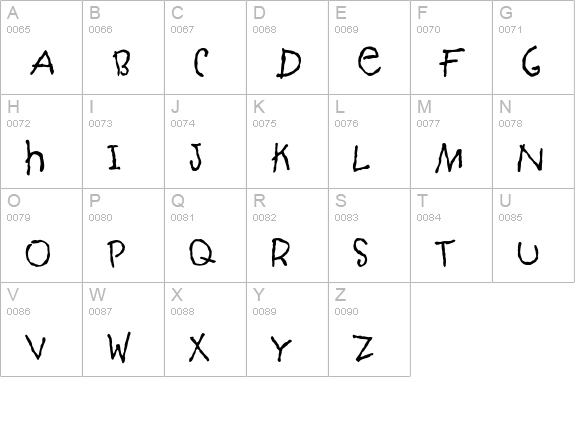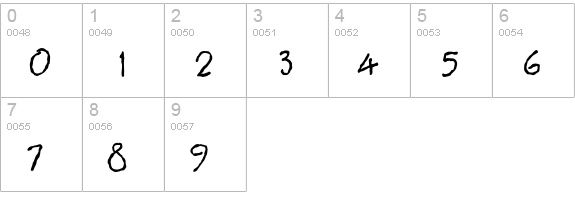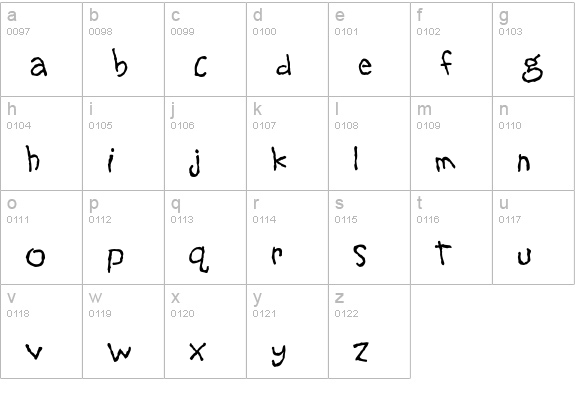
Yoo-Hoo Font Details
Introducing Yoo-Hoo font, a whimsical and playful typeface that adds a touch of fun to any project. This font features rounded edges and a friendly appearance, making it perfect for children's designs, greeting cards, and more. The Yoo-Hoo font is free to download at FontsMarket.com, allowing you to easily access this charming typeface for all your creative endeavors. With its unique personality and easy readability, Yoo-Hoo font is sure to make a delightful addition to your font collection.